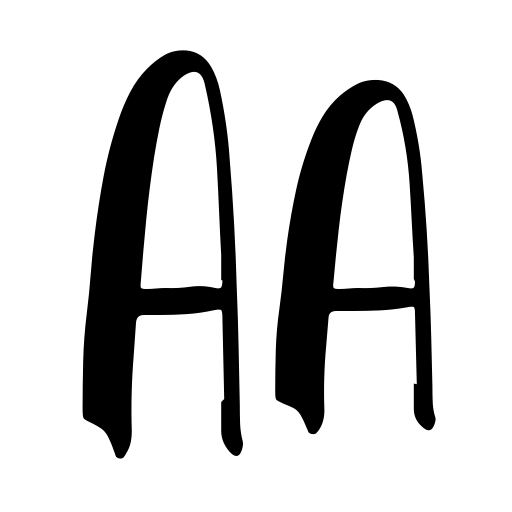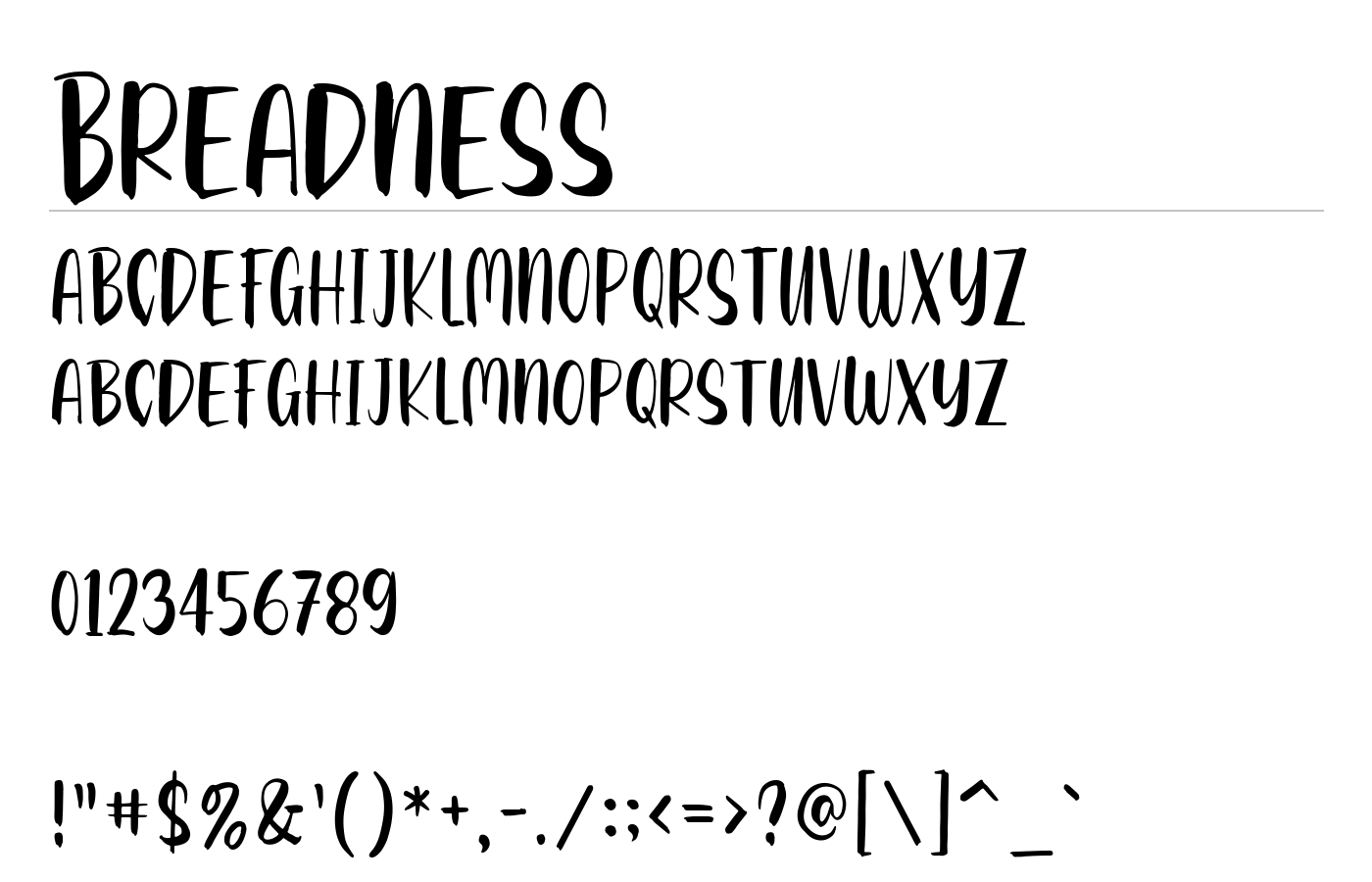
Breadness is a lively, hand-drawn sans serif font with a tall, narrow structure and playful irregular strokes that give it a casual, friendly feel. Its charming, handwritten style makes it perfect for creative projects, packaging, and informal branding where a warm, approachable mood is desired. This font works well in headlines and logos, adding personality and a personal touch to designs.
Breadness Font
About Breadness Font
| Font family | Breadness Font |